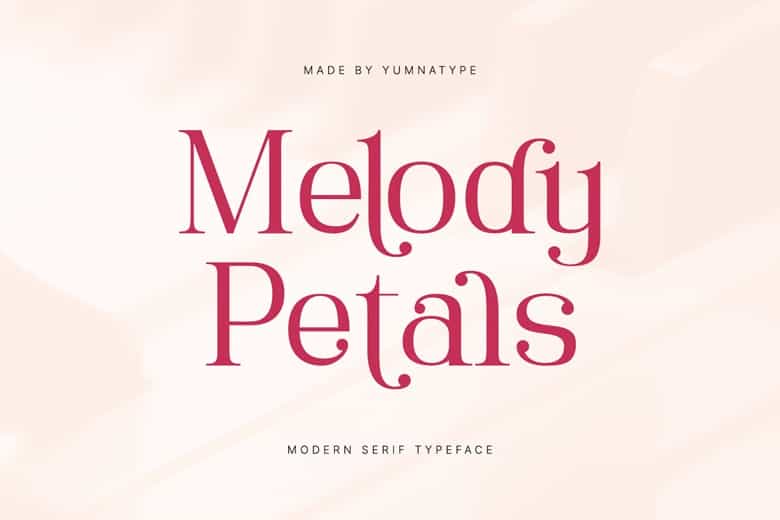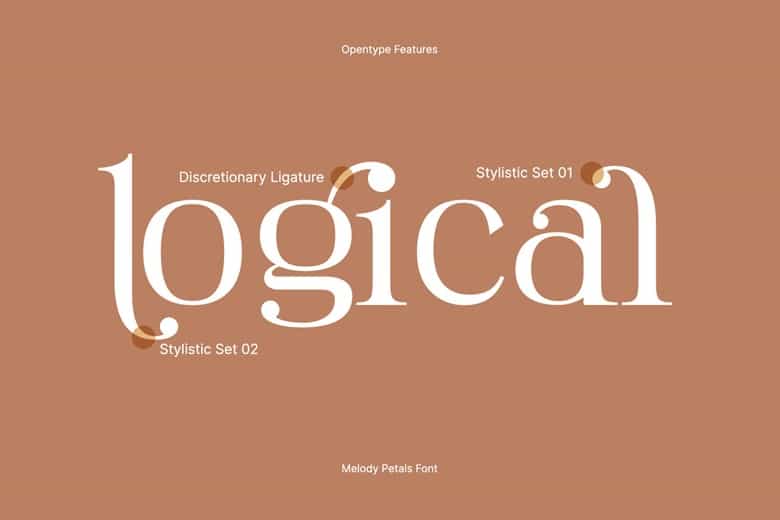
Melody Petals is a classy serif font that has a touch of the contemporary in it. This font is created with utmost care and tenderness in order to give that elegance to your designs. Every single letter in Melody Petals is designed with smooth and sleek strokes and smooth corners giving it a look that is both old and new.